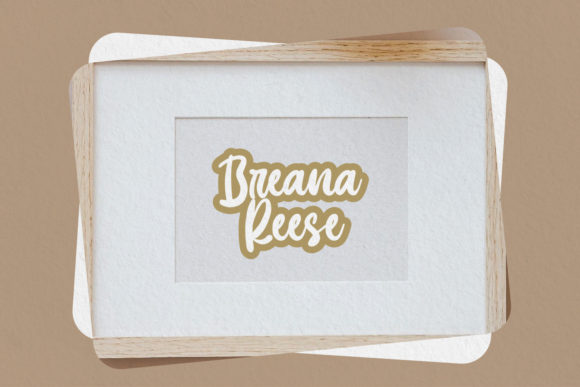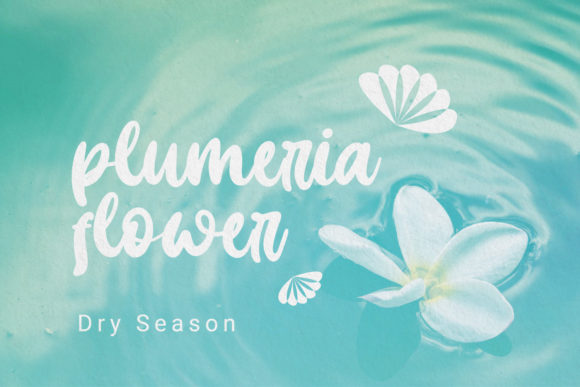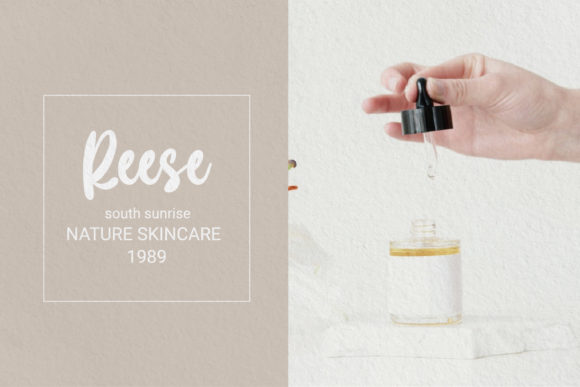
Introduction to Cooked Mellow Font
Do you remember that moment when you stumbled upon the perfect font for your creative project, and suddenly everything just clicked into place? It’s a feeling that’s hard to describe, but it’s a mix of excitement, relief, and a dash of pride. For many designers, finding the right font is like finding a missing piece of a puzzle – it can make all the difference between a good design and a great one.
One such gem is the Cooked Mellow Font, a beautiful and chic handwritten font that’s sure to elevate any design to the next level. Whether you’re working on a wedding invitation, a thank you card, or a logo, this font is the perfect addition to give it a customized touch. And the best part? It’s available as a high-quality design resource with a transparent background, making it easy to use in any design project.
Key Features of Cooked Mellow Font
- High-quality design: Cooked Mellow Font is a well-crafted design resource perfect for creative projects that require a sophisticated and modern look.
- Transparent background: The Cooked Mellow Font features a transparent background, allowing for easy layering and composition in various design applications.
- High-resolution design: Cooked Mellow Font is designed at a high resolution of 300 DPI, ensuring crisp and clear text rendering in both print and digital applications.
- Unique characteristics: The font’s unique blend of modern and vintage elements makes it an excellent choice for designers looking to add a touch of sophistication and elegance to their creative projects.
Honest Review: Cooked Mellow Font
I recently stumbled upon the Cooked Mellow Font, and I must say it’s been a game-changer for my creative projects. As a designer, I’m always on the lookout for high-quality design resources that can elevate my work. The Cooked Mellow Font delivers.
What works well is its versatility and modern aesthetic. The font is perfect for a wide range of creative projects, from branding and logos to digital products and marketing materials. The transparent background makes it easy to layer and combine with other design elements.
- ✨ Clean and minimalist design
- ✨ High-quality vector format
- ✨ Transparent background for easy layering
However, I do have to mention a few limitations. The font is only available in a limited number of weights, which might be a drawback for designers who prefer a more extensive range of options. Additionally, the font may not be suitable for large-scale text due to its minimalist design.
Overall, I’m impressed with the Cooked Mellow Font. It’s a great addition to any designer’s toolkit, and I’d definitely recommend it to anyone looking for a high-quality, modern font for their creative projects.
The Cooked Mellow Font is a high-quality design resource perfect for creative projects. Its transparent background makes it ideal for use in various design applications.
The Cooked Mellow Font is suitable for a variety of design applications, including logos, branding, and marketing materials. Its high-quality design and transparent background make it an ideal choice for designers looking for a versatile design resource.